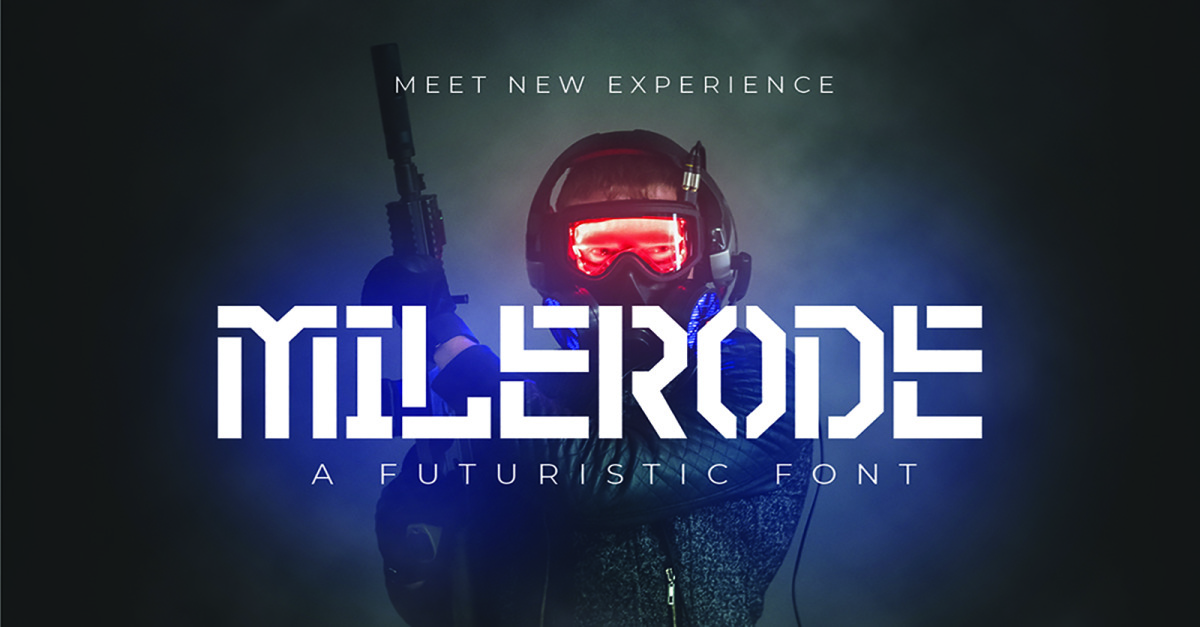
Milerode - Futuristic Font
Milerode - Futuristic Font with a calligraphy style, So beautiful on invitation like greeting cards, branding materials, business cards, quotes, posters, and more!
- Tons of glyphs
- Alternates and Ligatures
- Punctional
- Fonts include Multilingual Support